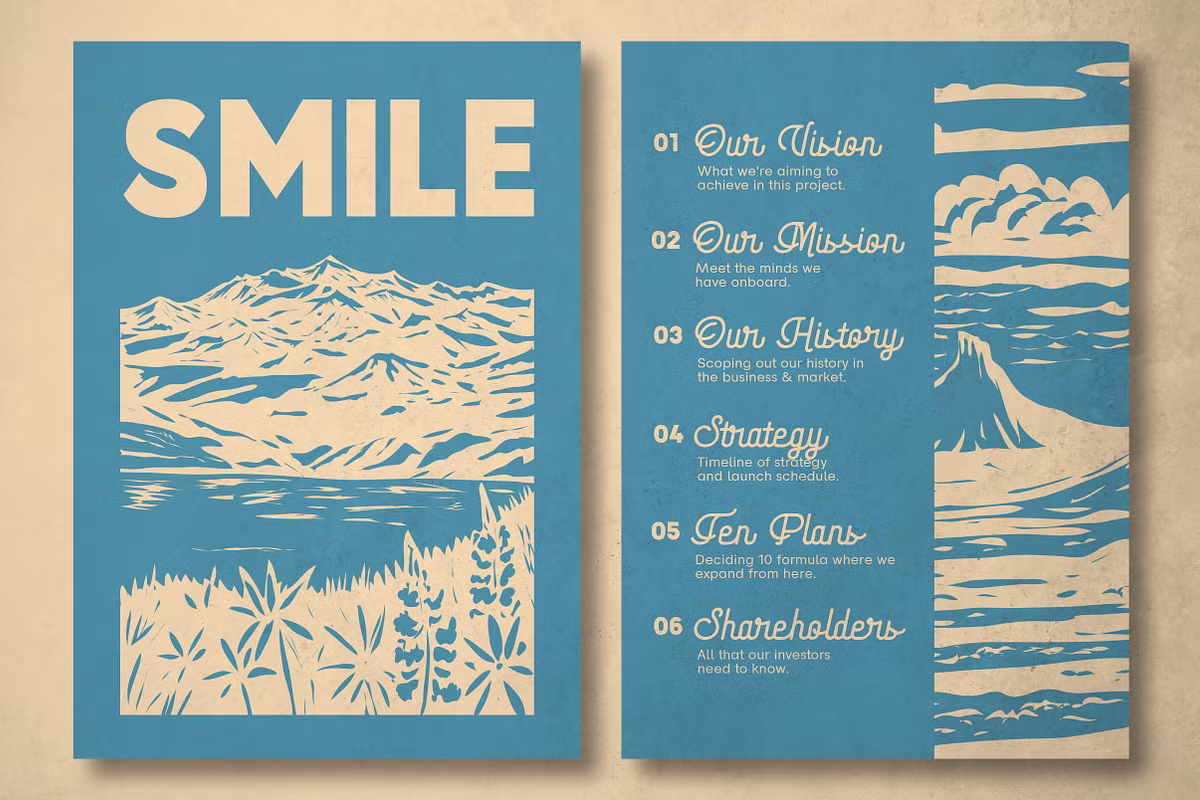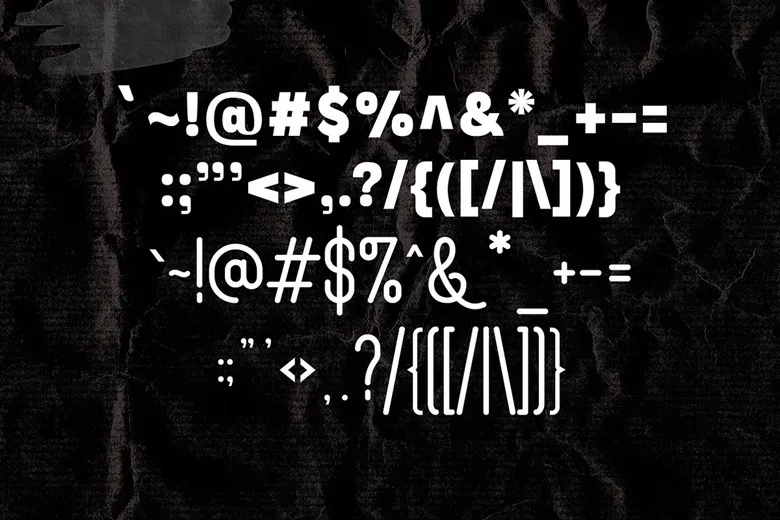
Travel Growth Duo Font
The Travel Growth Vintage Font Duo draws inspiration from the travel poster typography of the 20th century, featuring a rounded script with a large x-height and an Art Nouveau-inspired elegance, complemented by a sans-serif hint. The two fonts are designed to work harmoniously together, offering both readability and versatility, with a bold, robust personality that enhances their contemporary appeal. This versatile font pair is crafted for designers, marketers, and creatives who seek a vintage, elegant, and impactful look.
Ideal for branding, web design, packaging, and editorial layouts, the Travel Growth Duo provides excellent readability while delivering a sleek, minimalist aesthetic. Its bold and powerful style makes it an excellent choice for any project that needs to stand out and stay on trend.